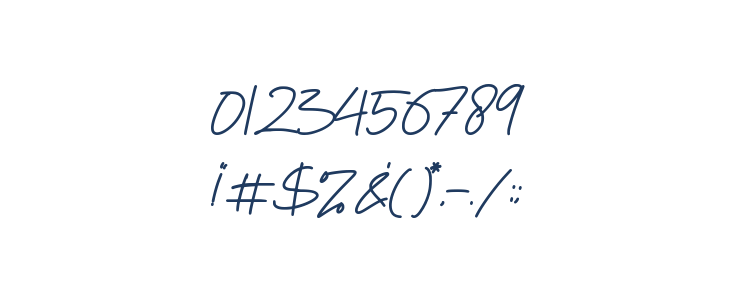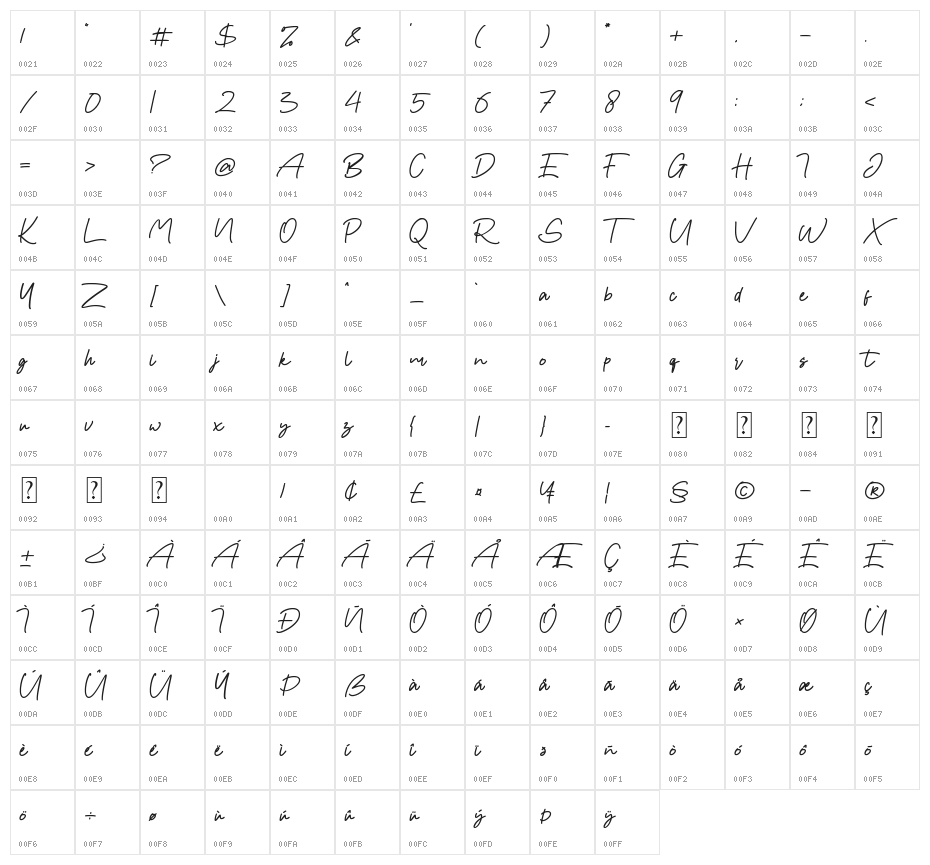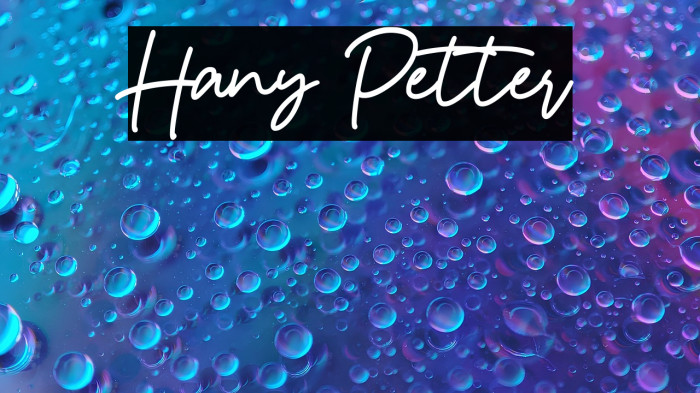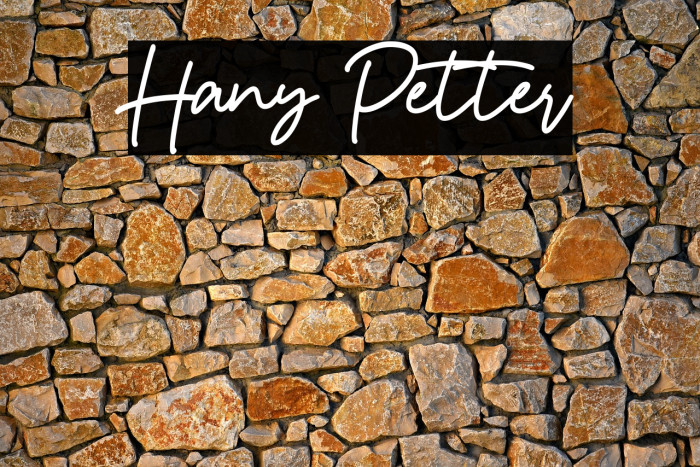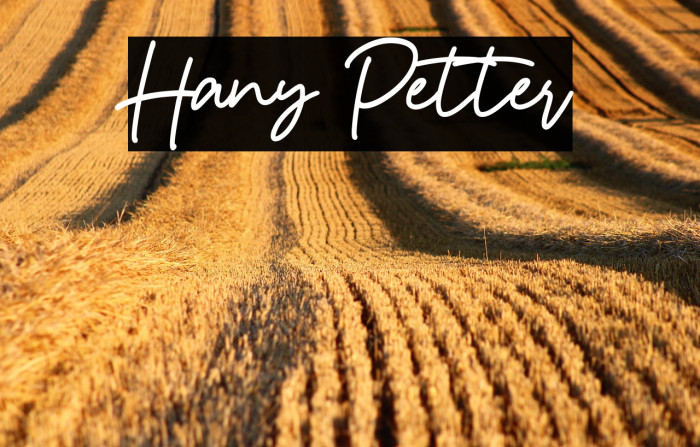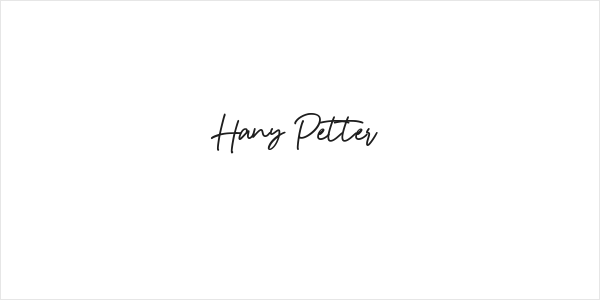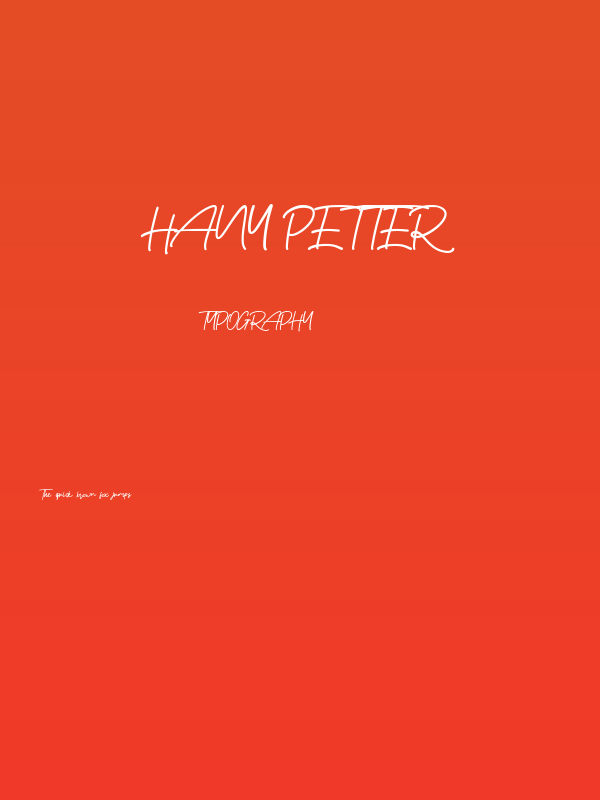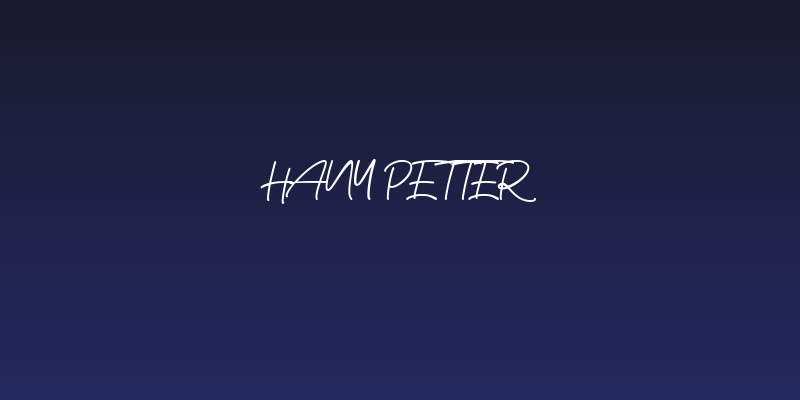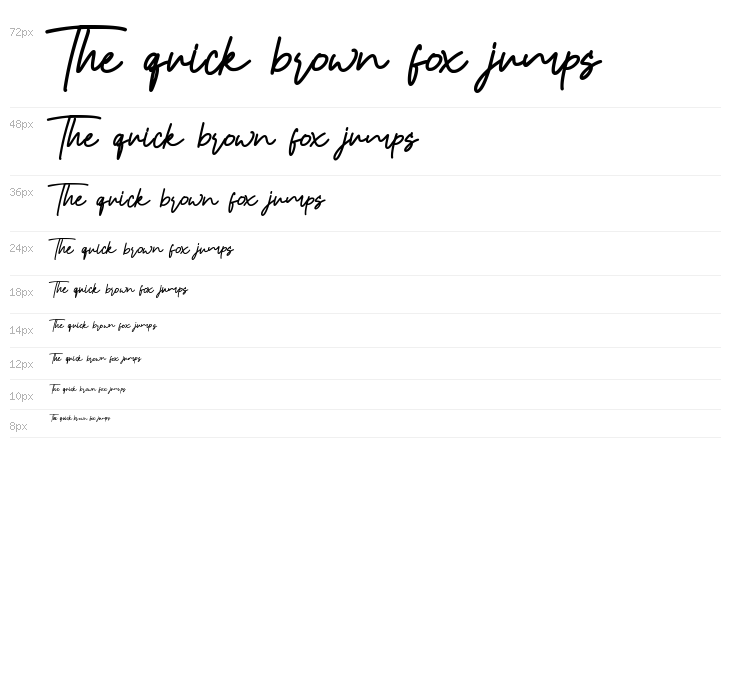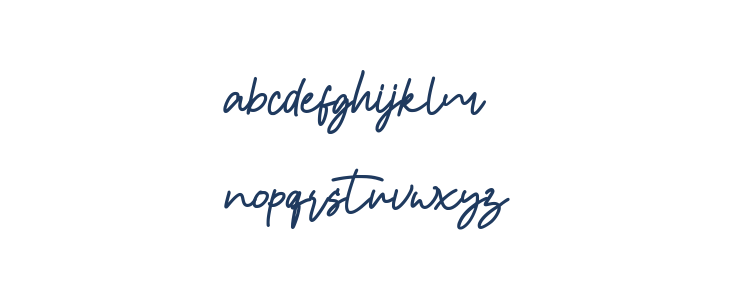
Hany Petter Font
Hany Petter Description
This font features a lively and dynamic handwritten style, characterized by its fluid and cursive letterforms. The strokes are smooth and continuous, giving it an organic and personal touch. The uppercase letters are bold and expressive, while the lowercase letters maintain a consistent flow, enhancing readability. The numerals and special characters are crafted with the same attention to detail, ensuring uniformity across all glyphs. This font exudes a casual yet sophisticated vibe, making it suitable for a variety of creative applications.
| Overall Style | Casual, Sophisticated |
| Proposed Projects | Ideal for greeting cards, invitations, personal branding, and creative projects that require a personal touch. |